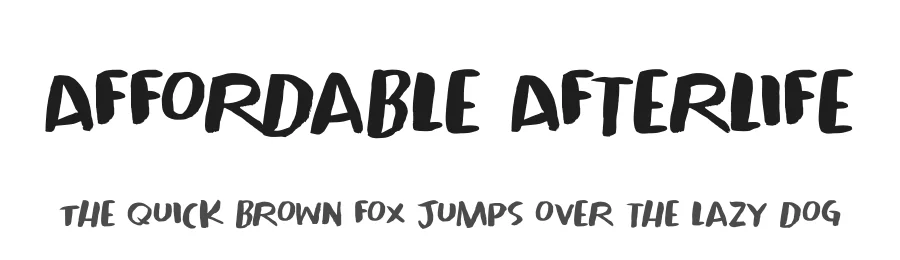
About Sunday Morning Font
Sunday Morning is a script & handwritten font designed by Zansari. It includes 108 glyphs, a regular weight, OTF (CFF) format, and 194 languages. Sunday Morning is free to download; check the license details on this page before commercial use. Script & handwritten fonts like Sunday Morning work best for wedding invitations, greeting cards, signatures, and elegant branding.
Sunday Morning Font is a script font that shines as a display or heading face. Pair it with a clean sans-serif or serif font for body text β the contrast creates a clear hierarchy while the two styles stay balanced and easy to read.
Sunday Morning Font
by Zansari